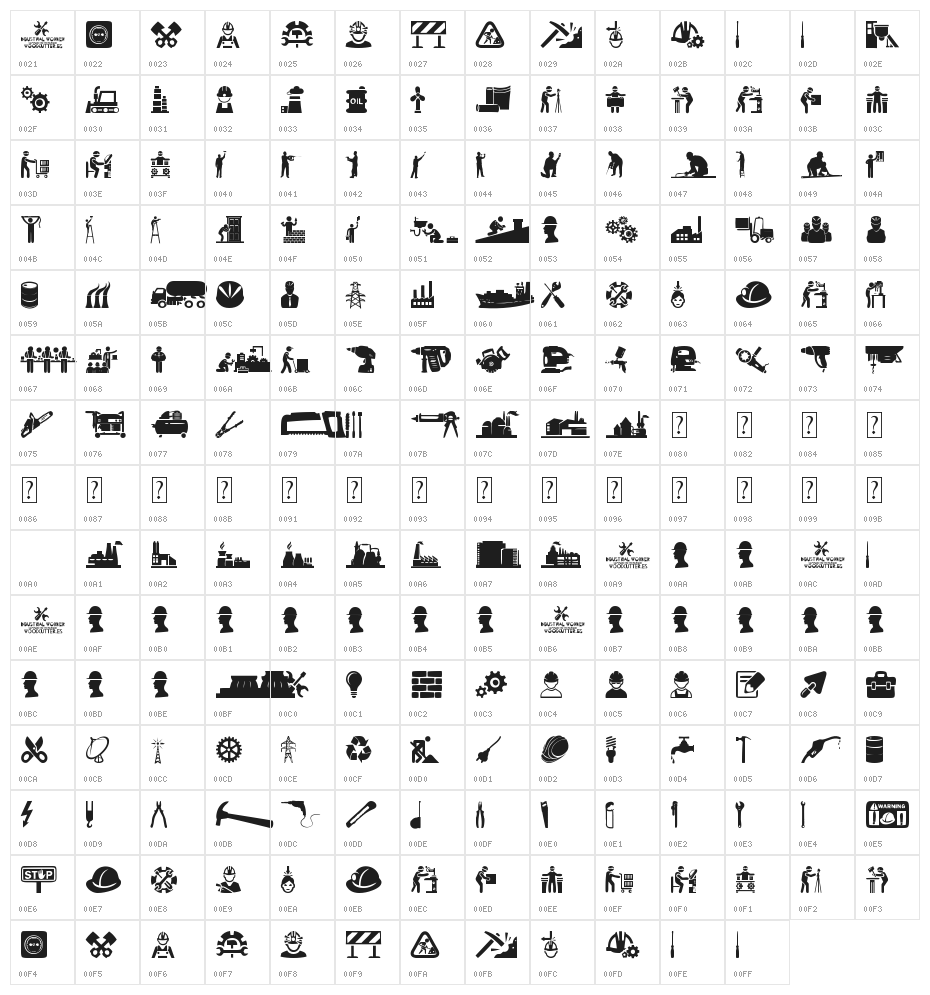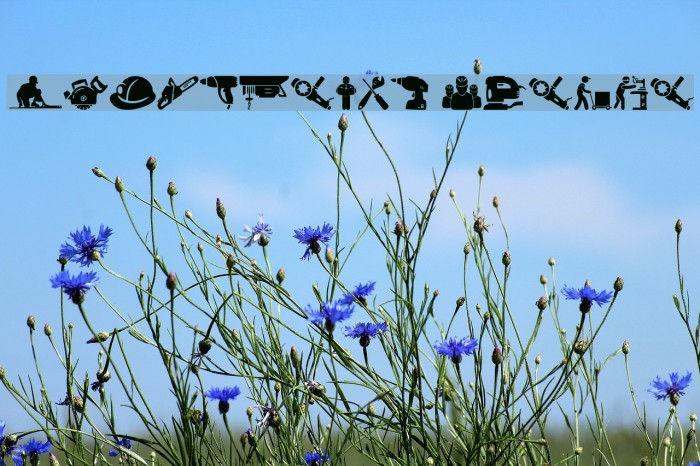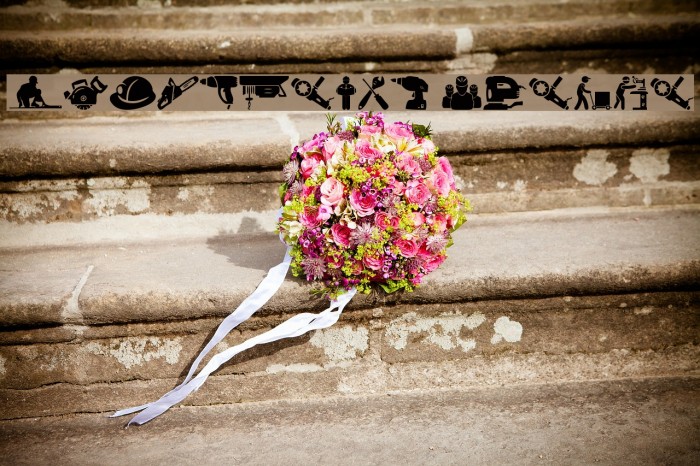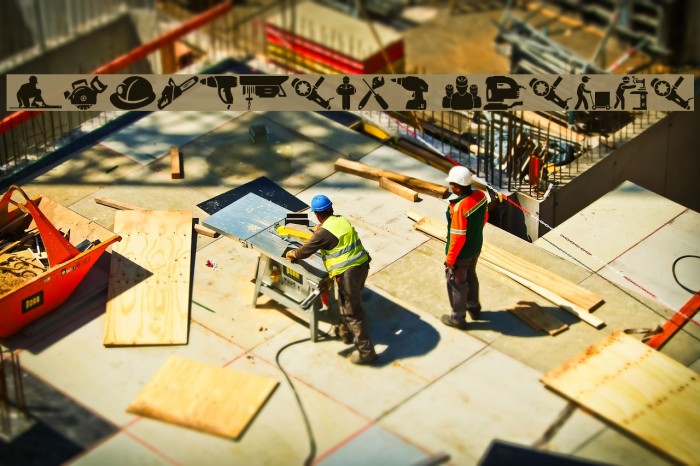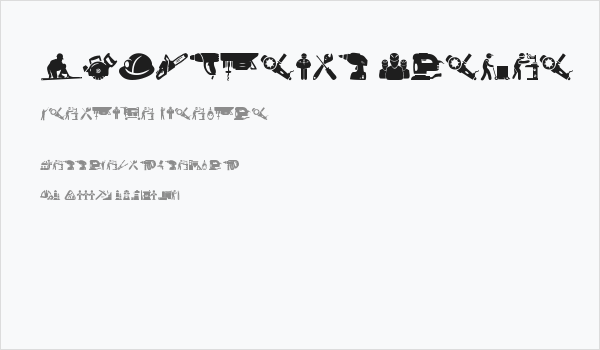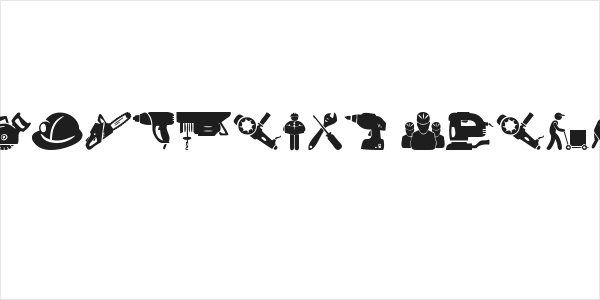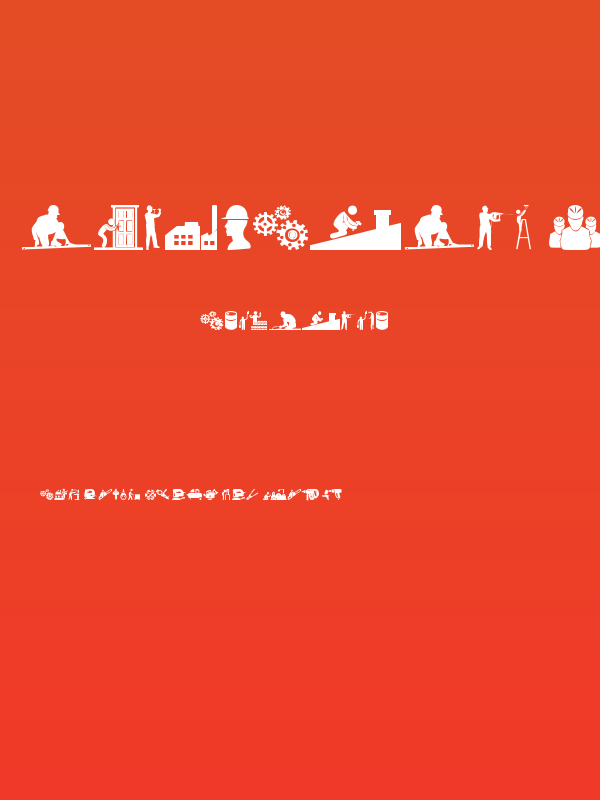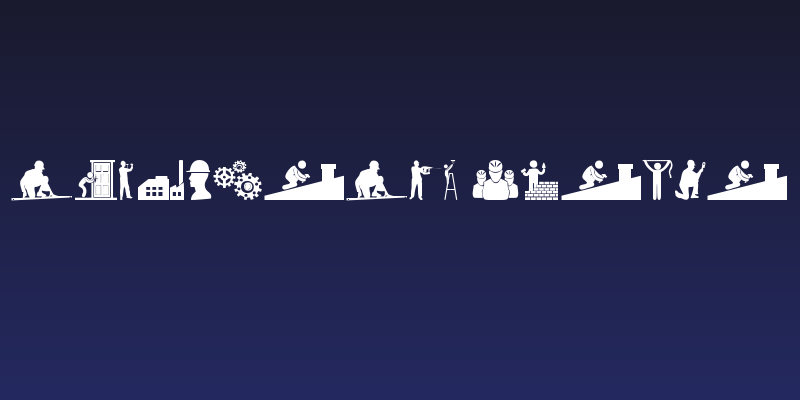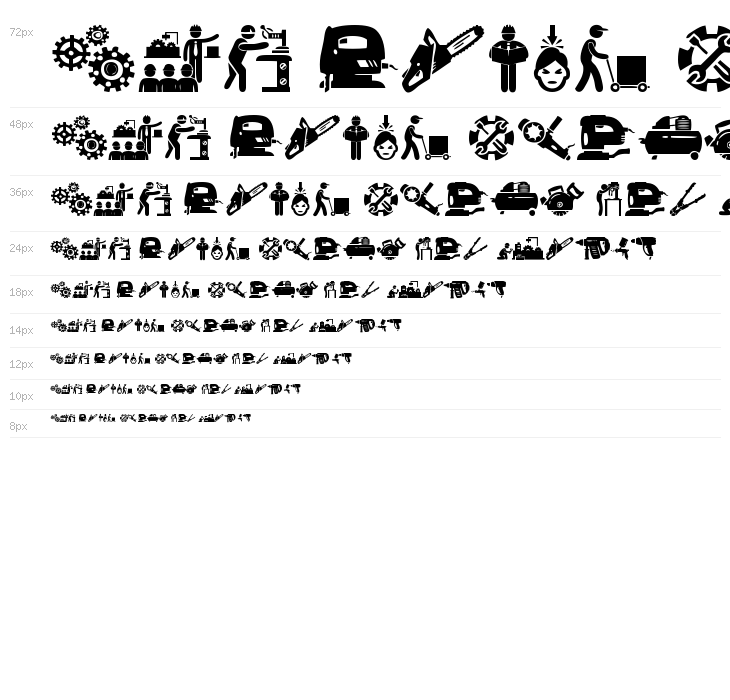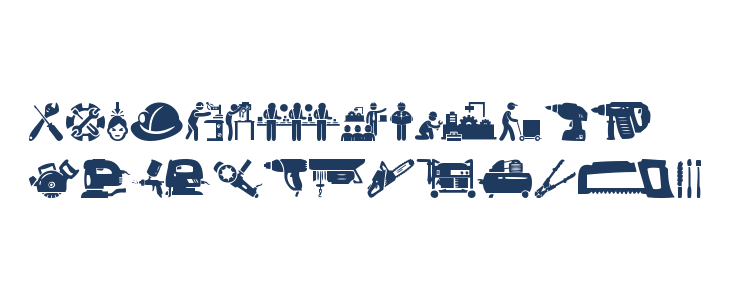
Industrial Worker Font
Industrial Worker Description
A pictogram-style dingbat font featuring silhouettes of industrial workers, construction equipment, tools, machinery, safety gear, and related workplace icons. The glyphs are bold, solid, and highly simplified for clear visual communication.
| Overall Style | Decorative, Modern, Pictogram |
| Use Case | Icons, Signage, Infographics, Visual Aids |
| Proposed Projects | Infographics, safety manuals, signage, instructional materials, industrial branding, educational posters. |